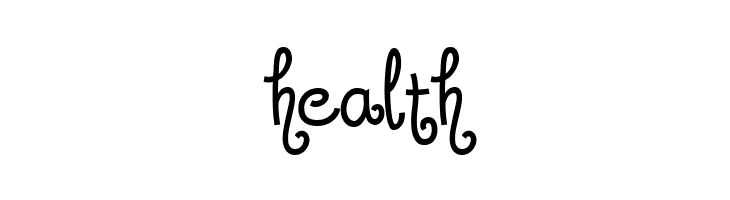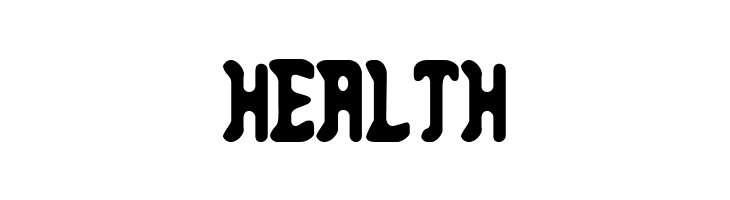
A whimsical, decorative font with playful curls and swirls.
A bold, decorative font with thick, rounded strokes and a playful style.
A futuristic, geometric font with a digital and technological aesthetic.
A bold, embossed font with a three-dimensional effect and sharp, angular lines.
A bold, angular font with a strong geometric influence and high contrast.
A bold, geometric font with sharp angles and a futuristic look.
A bold, modern font with a slightly condensed and rounded design.
A bold, geometric font with a retro digital style.
A tall, narrow, and modern font with a sleek and sophisticated style.
A modern, geometric font with a sleek, futuristic design.